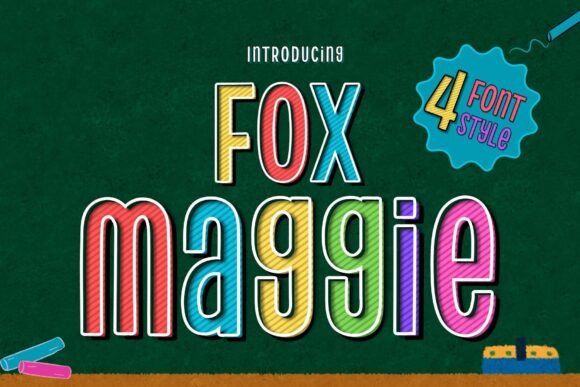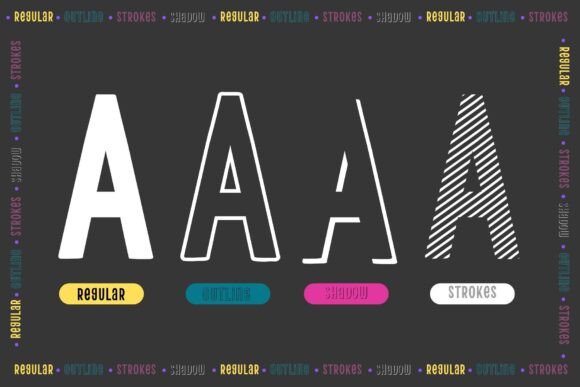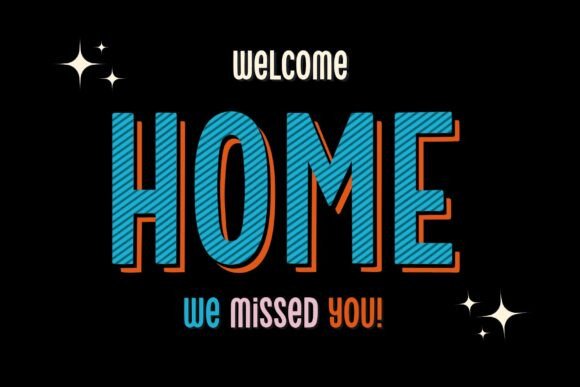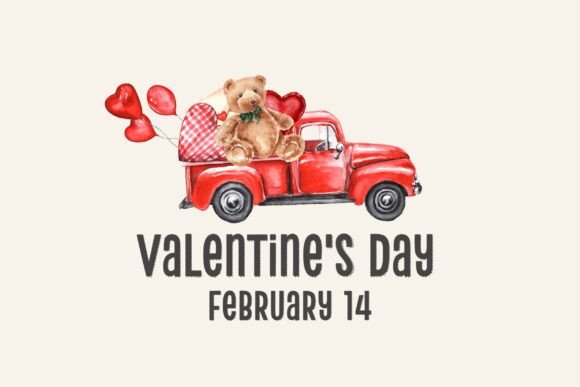
Fox Maggie Font: A Playful Display Font for Kids & Creative Crafts
About the Fox Maggie Font
The wait is over! The incredible Fox Maggie Font is now available for your design toolkit. Fox Maggie, a playful and versatile font family designed to bring charm and creativity to your projects! This font offers 4 unique styles: Regular, Outline, Shadow, and Strokes, allowing endless possibilities for your design needs. Perfect for kids’ themes, classroom posters, handmade crafts, or any creative projects, Fox Maggie adds a vibrant, fun-filled personality to your work. Whether you’re looking for bold simplicity or a touch of texture, this font has you covered!
Fox Maggie’s playful nature makes it ideal for headlines, short text blocks, logos for children’s brands, and playful packaging designs. Its various styles are well-suited for creating eye-catching posters and social media graphics. However, avoid using it for large amounts of body text or UI elements; its playful forms reduce readability in longer passages.
For a balanced aesthetic, pair Fox Maggie with a clean sans-serif like Open Sans for body text, creating contrast and visual hierarchy. Alternatively, a classic serif like Garamond can lend sophistication, grounding the font’s whimsy. For a more modern feel, consider pairing it with a geometric sans-serif such as Futura.
The font’s overall personality is undeniably cheerful and informal, making it unsuitable for projects requiring seriousness or high-end elegance. Its versatility lies in its ability to inject a sense of fun and energy into otherwise straightforward designs.
Fox Maggie Font Usage Examples
Fox Maggie Font Example